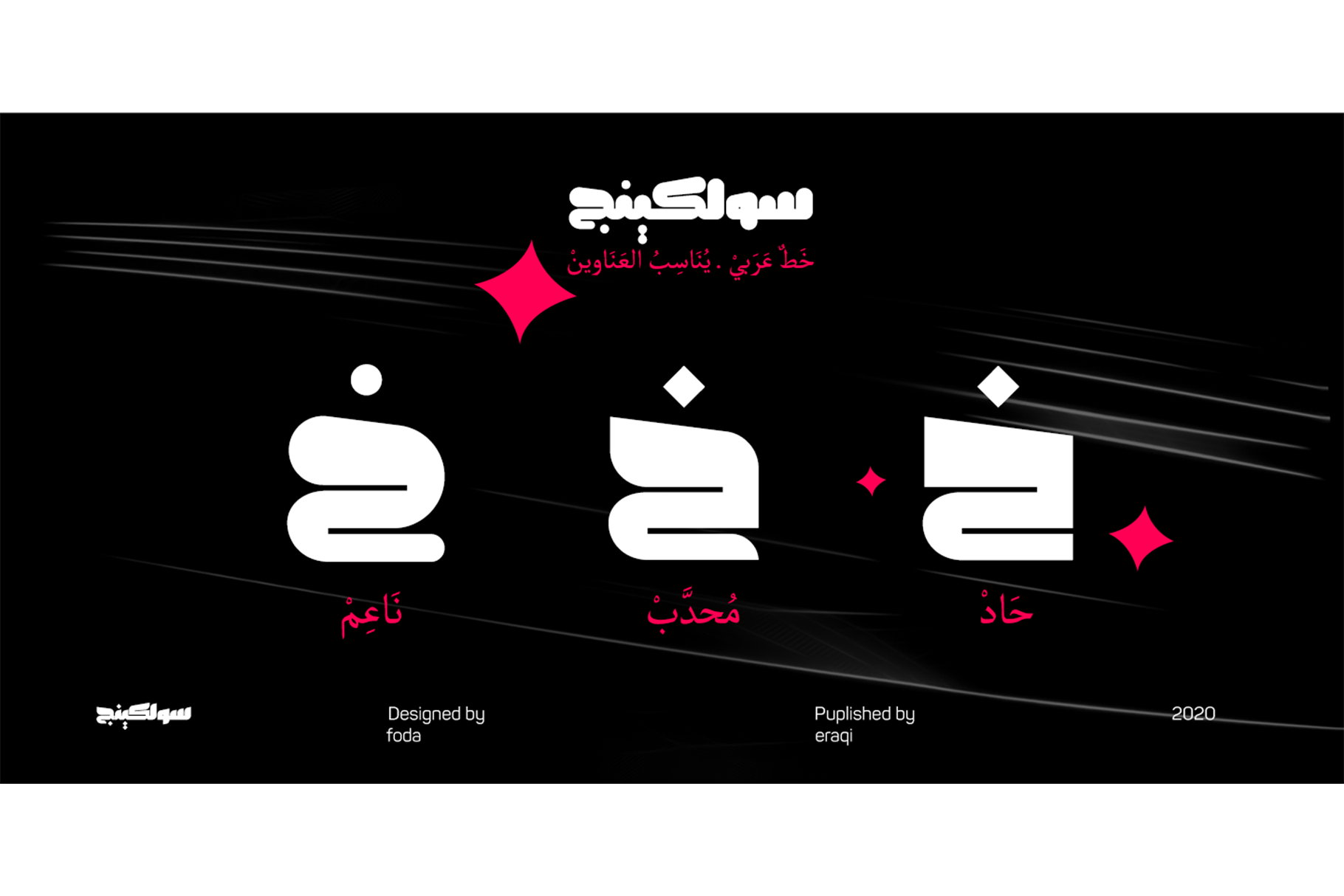
SolKing Font
Solking is an Arabic typeface of a three weights : Sharp, Curved and Rounded . the main focus is on blending traditional and modern rules in the formulation and design of the Kufi type in new style .